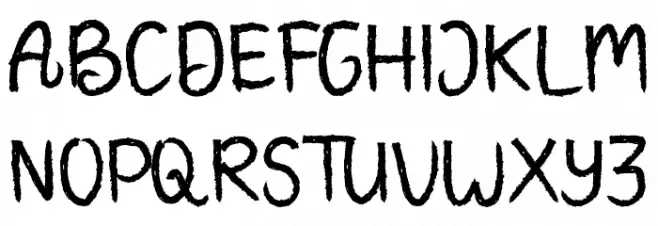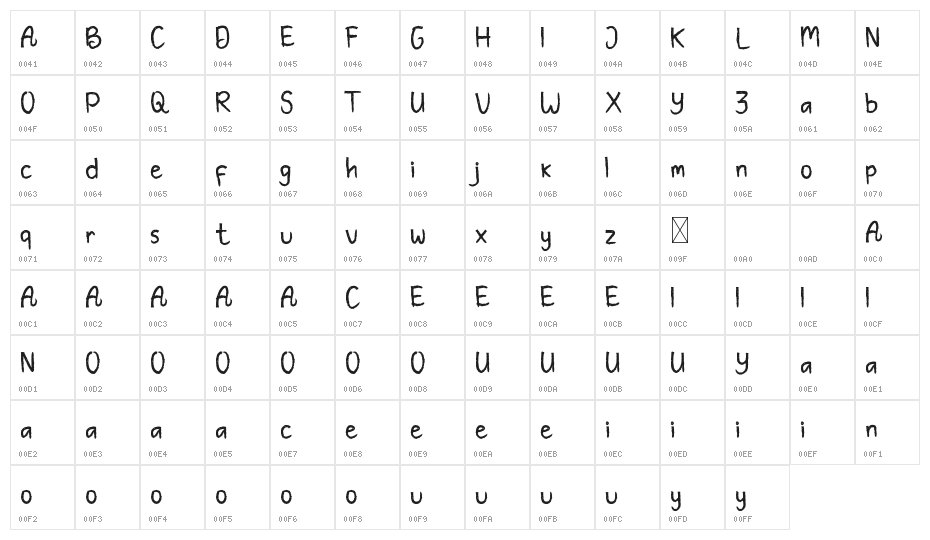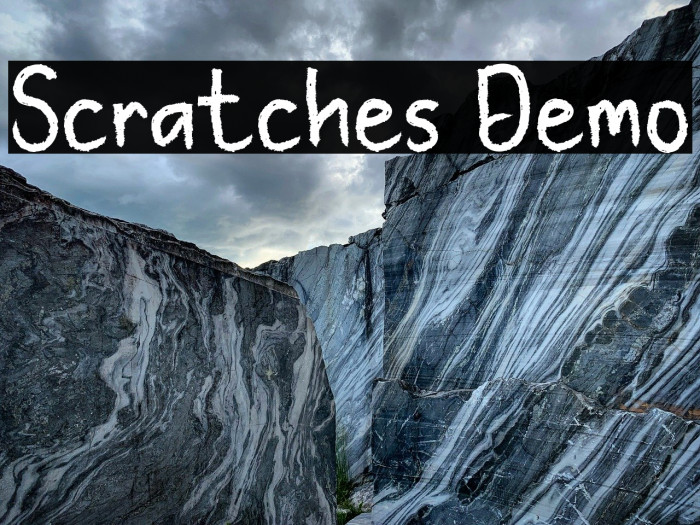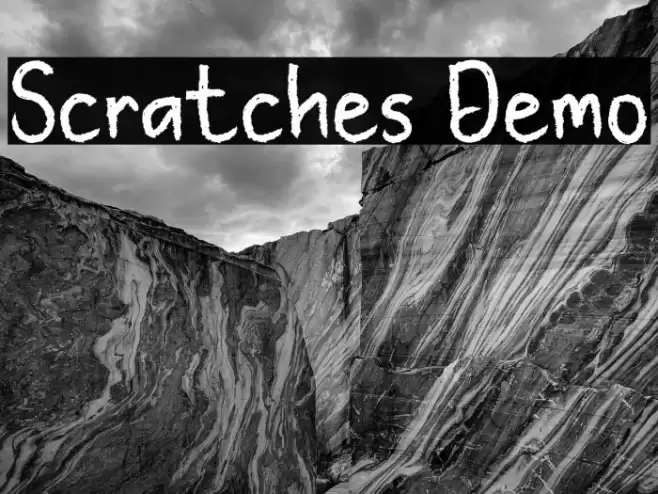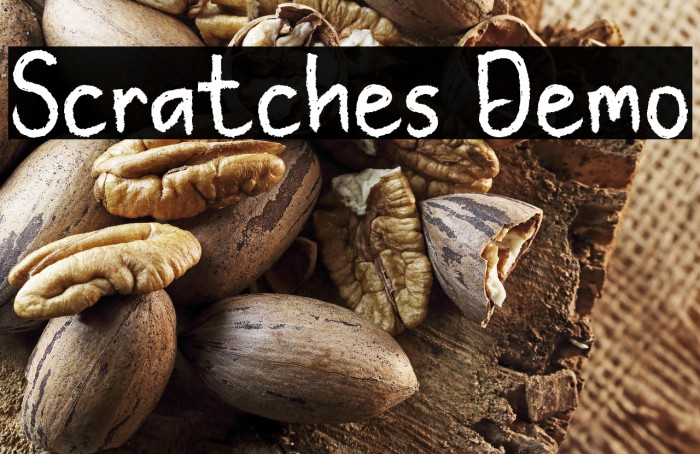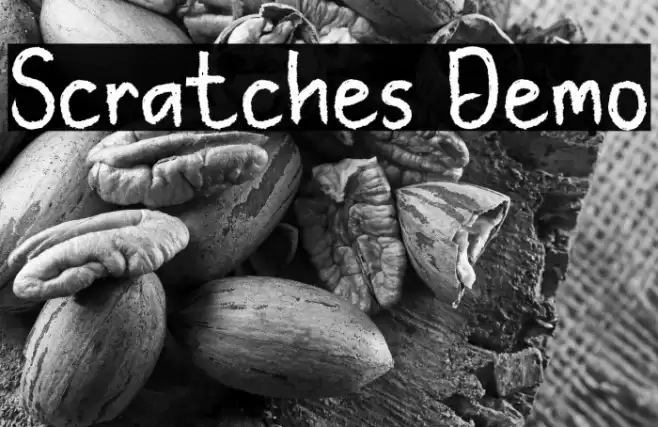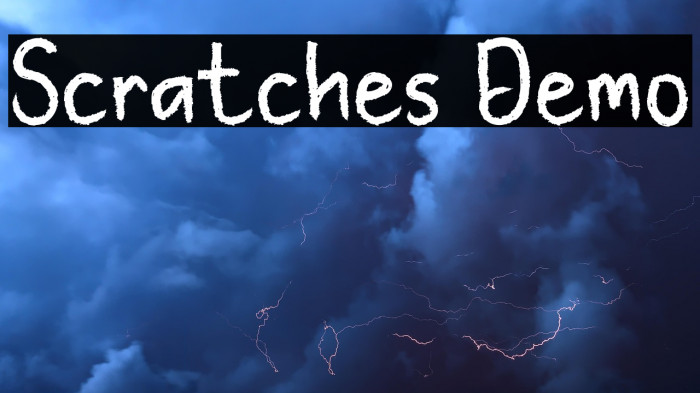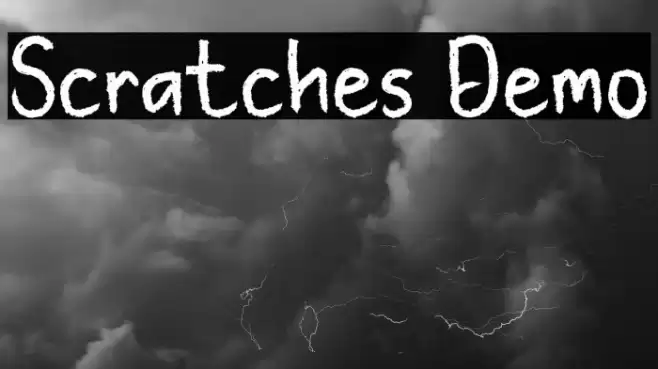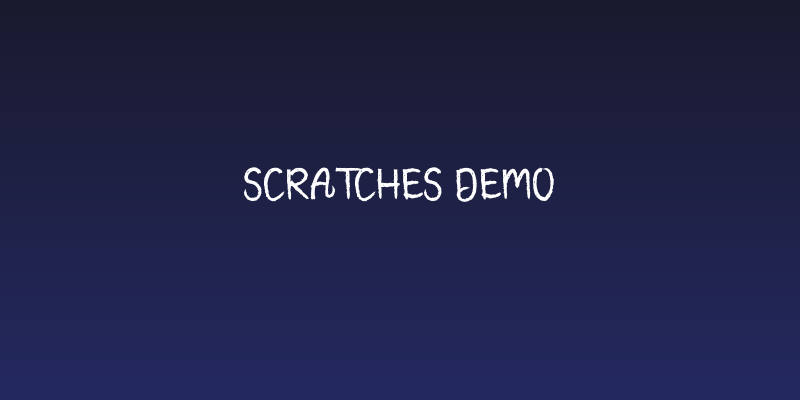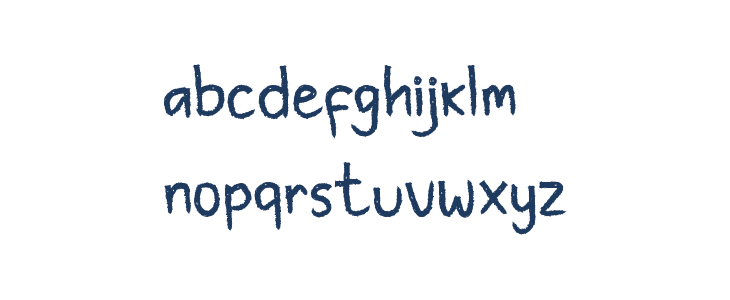
Scratches Demo Font
Scratches Demo Description
This font features a hand-drawn, textured style that mimics the appearance of chalk or crayon on a rough surface. The letters have an organic, uneven quality, with strokes that vary in thickness, giving it a casual and playful feel. The uppercase and lowercase letters are distinct, with a slightly whimsical touch, making it suitable for creative and informal projects. The numbers and special characters maintain the same textured aesthetic, ensuring consistency throughout the typeface. Its unique style is eye-catching and adds a personal, handcrafted touch to any design.